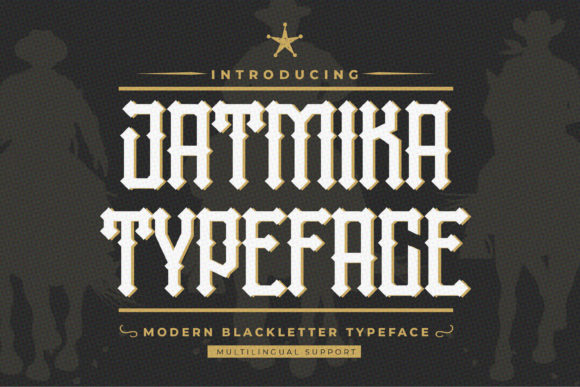
Unleash your creativity with Jatmika, a display font that exudes vintage charm and sophistication. Inspired by the allure of yesteryears, this font family captivates with its distinct character and intricate details. Each letter, meticulously crafted by Gassstype Studio, possesses a unique shape that demands attention, making Jatmika the perfect choice for creating logos that evoke a sense of nostalgia and timeless elegance.
Jatmika's bold presence and imposing stature command attention, ensuring your designs leave a lasting impression. Its captivating curves and sharp edges create a visual symphony that dances across your designs, captivating your audience with their magnetic pull. With Jatmika, your designs will radiate an aura of sophistication and exclusivity, setting them apart from the ordinary.
Step into a world of boundless possibilities with Jatmika, where your imagination reigns supreme. Whether you're crafting vintage-inspired logos, eye-catching posters, or captivating social media graphics, this display font elevates your designs to new heights of artistry. Its versatility extends to branding projects, packaging designs, and editorial layouts, making it the ultimate choice for designers seeking a font that seamlessly adapts to their creative vision.
With Jatmika, you'll discover a font that sparks creativity and ignites the imagination. Its meticulously crafted characters unleash a torrent of design possibilities, empowering you to create timeless designs that resonate with your audience. Embrace the vintage elegance of Jatmika and embark on a creative journey that will leave an indelible mark on the world of design.